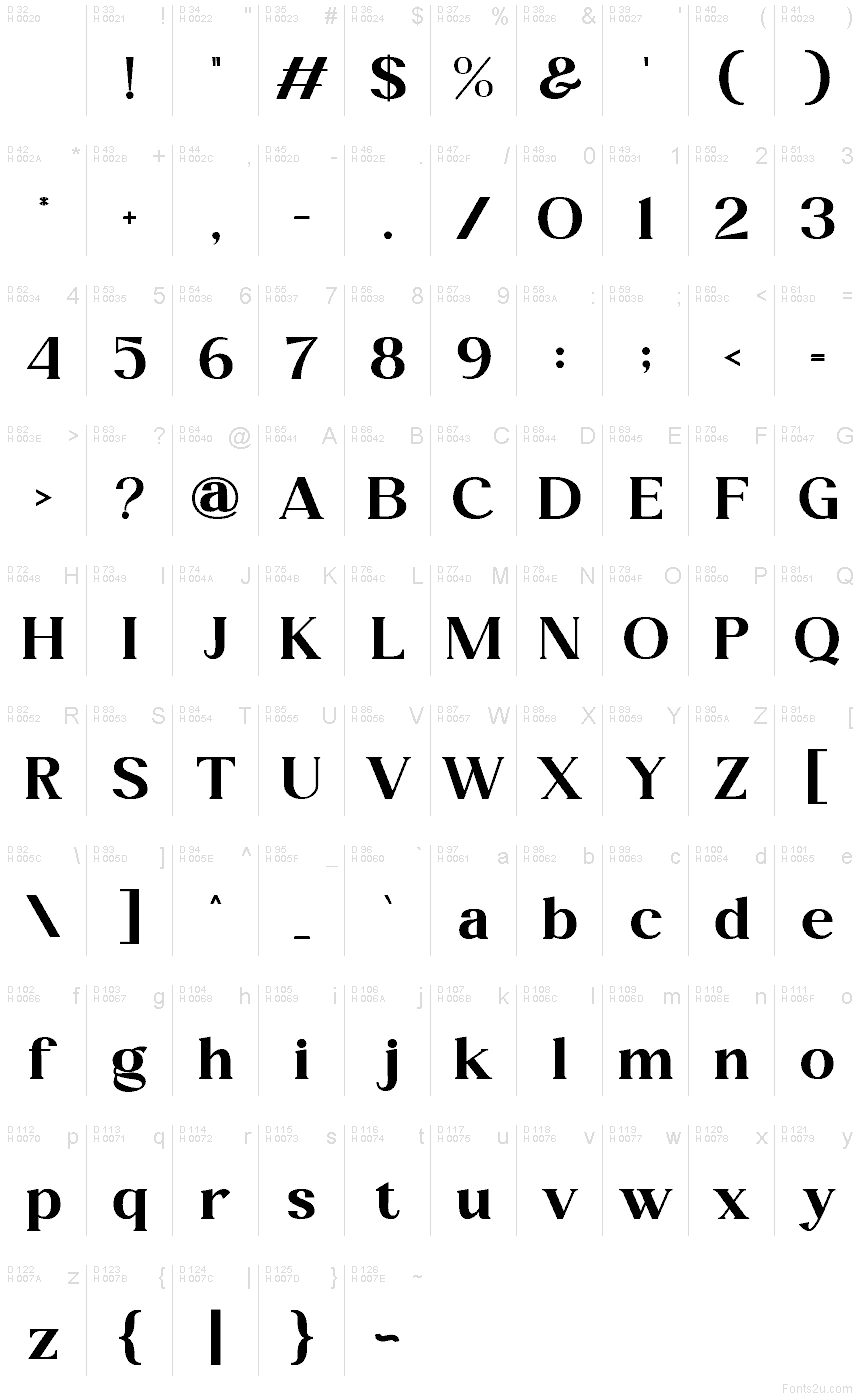
Kisthe
Kisthe font by Ermedia Studio is a free high-contrast serif display font. Its character lies in blade-sharp triangular serifs meeting smooth, inky curves—the kind of tension that snaps a headline into focus and gives logos a tailored edge. The rhythm is tight and confident, with sturdy verticals and elegant sweeps that feel both classic and newly cut.
Using Kisthe, headlines gain drama without getting fussy, making it a natural fit for branding wordmarks, magazine covers, luxury packaging, posters, book titles, and upscale invitations. This free font shines at large sizes where its crisp edges and velvet curves can breathe. Pair it with a restrained grotesk for body copy, and add a touch of tracking for extra sophistication.